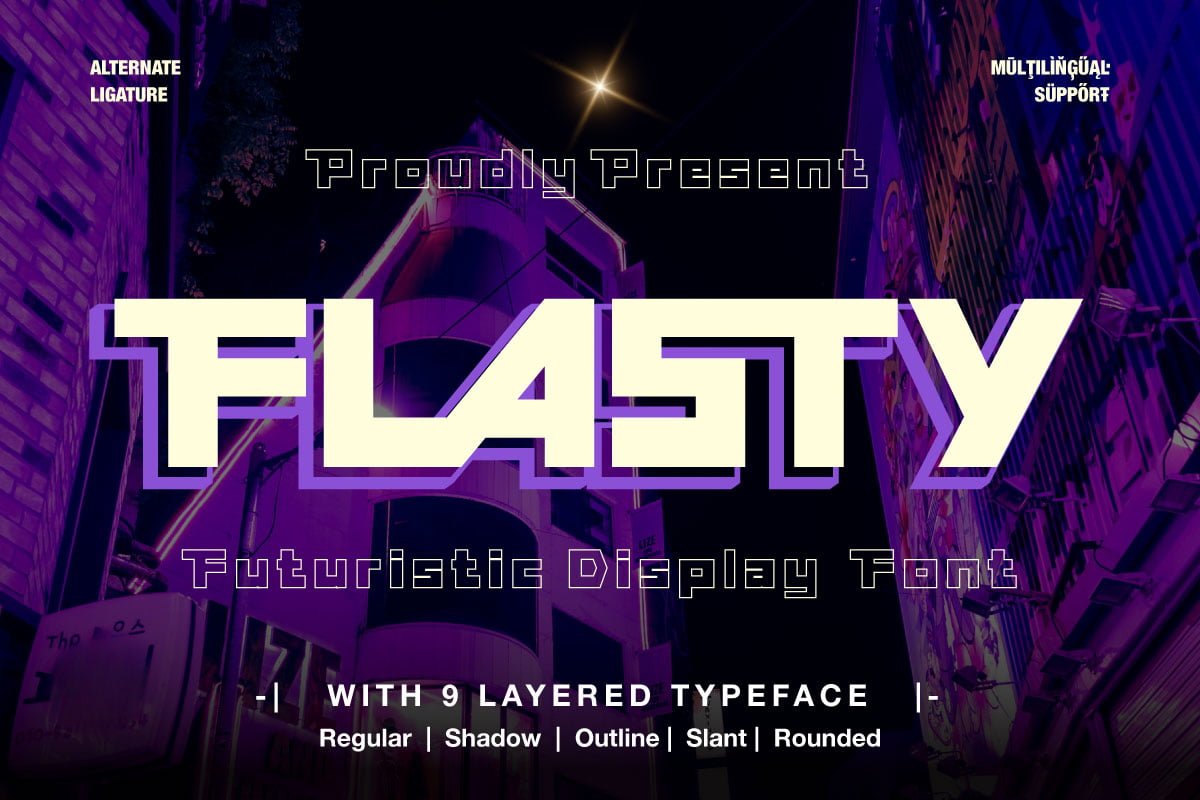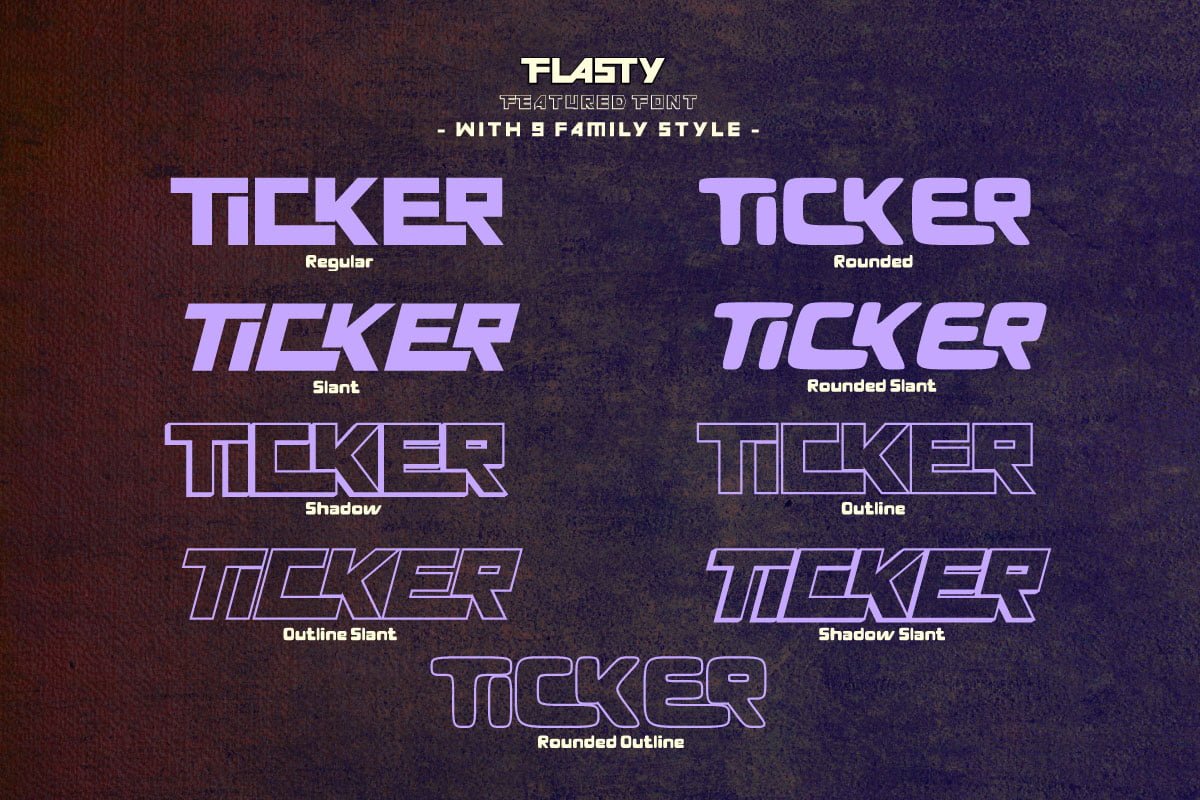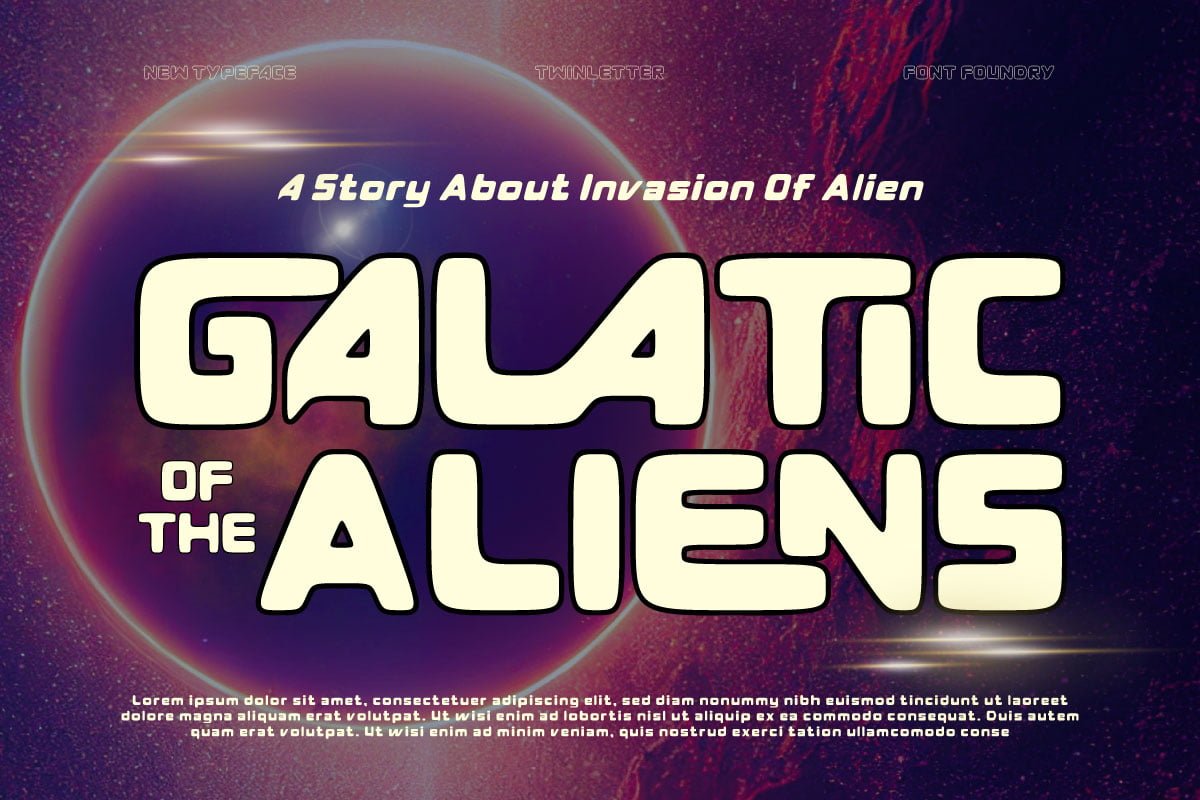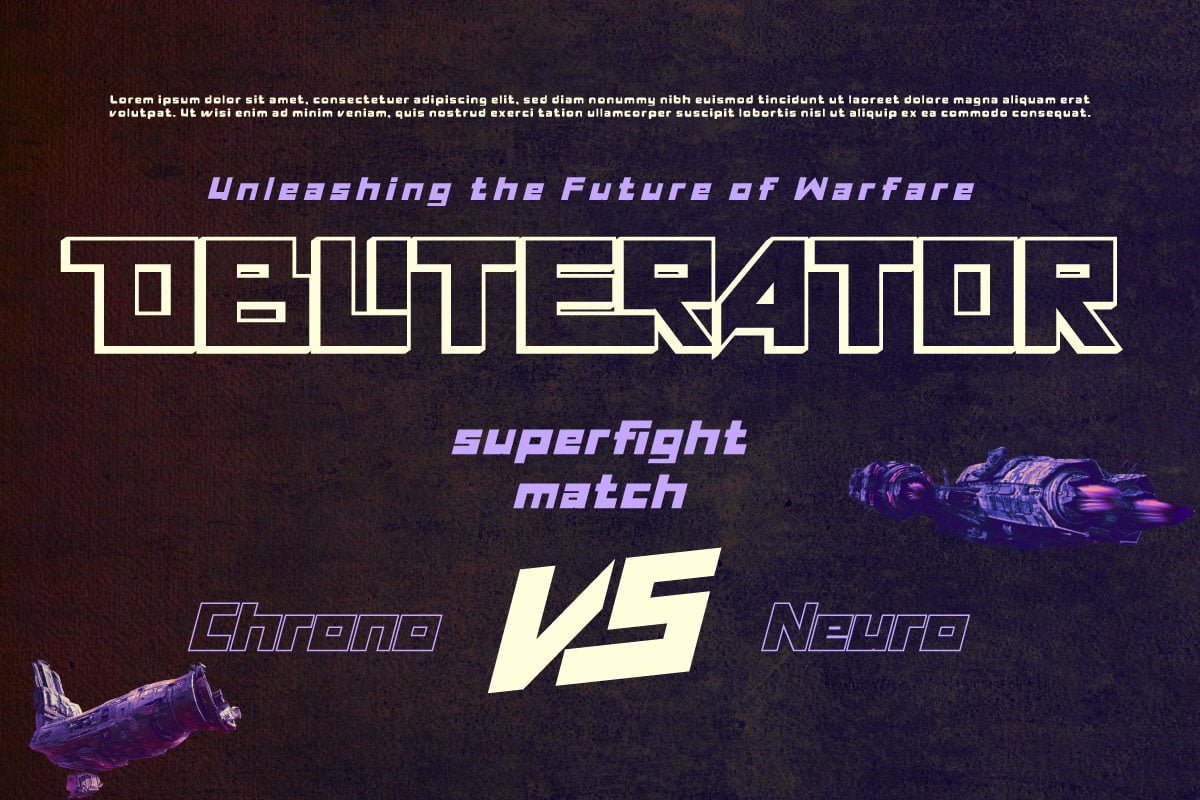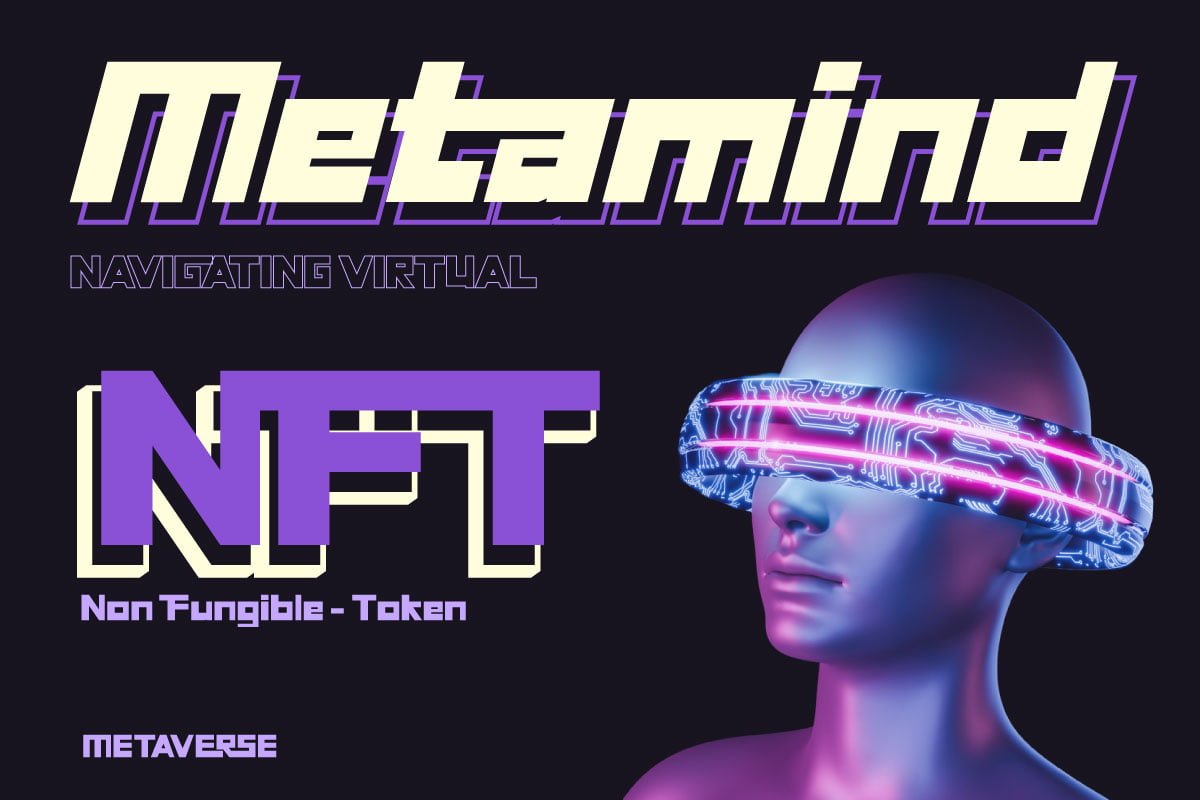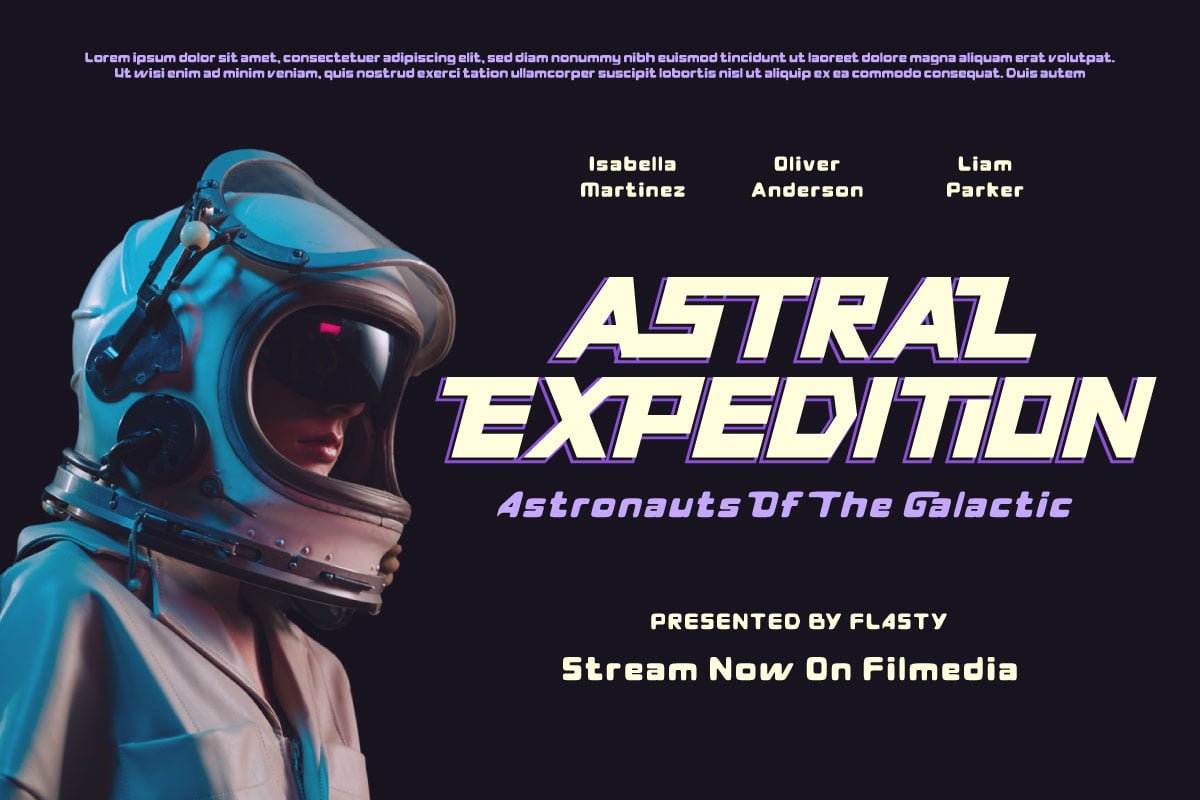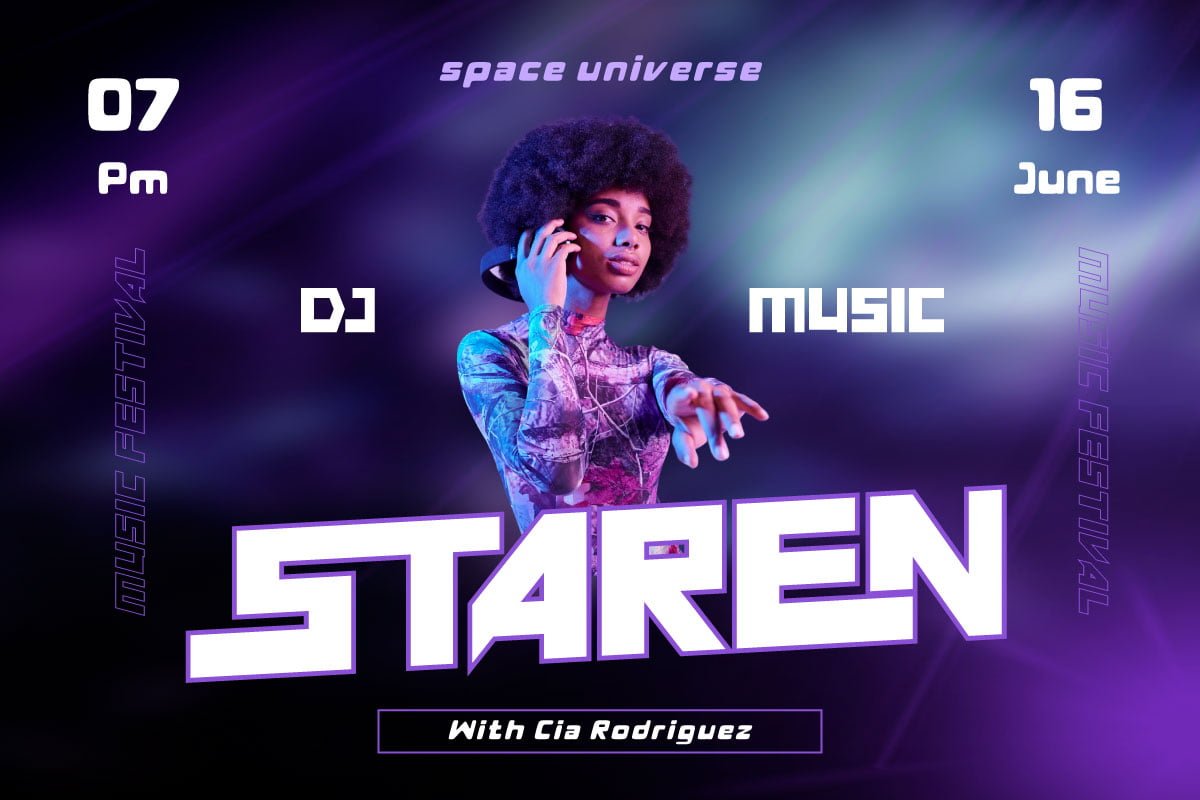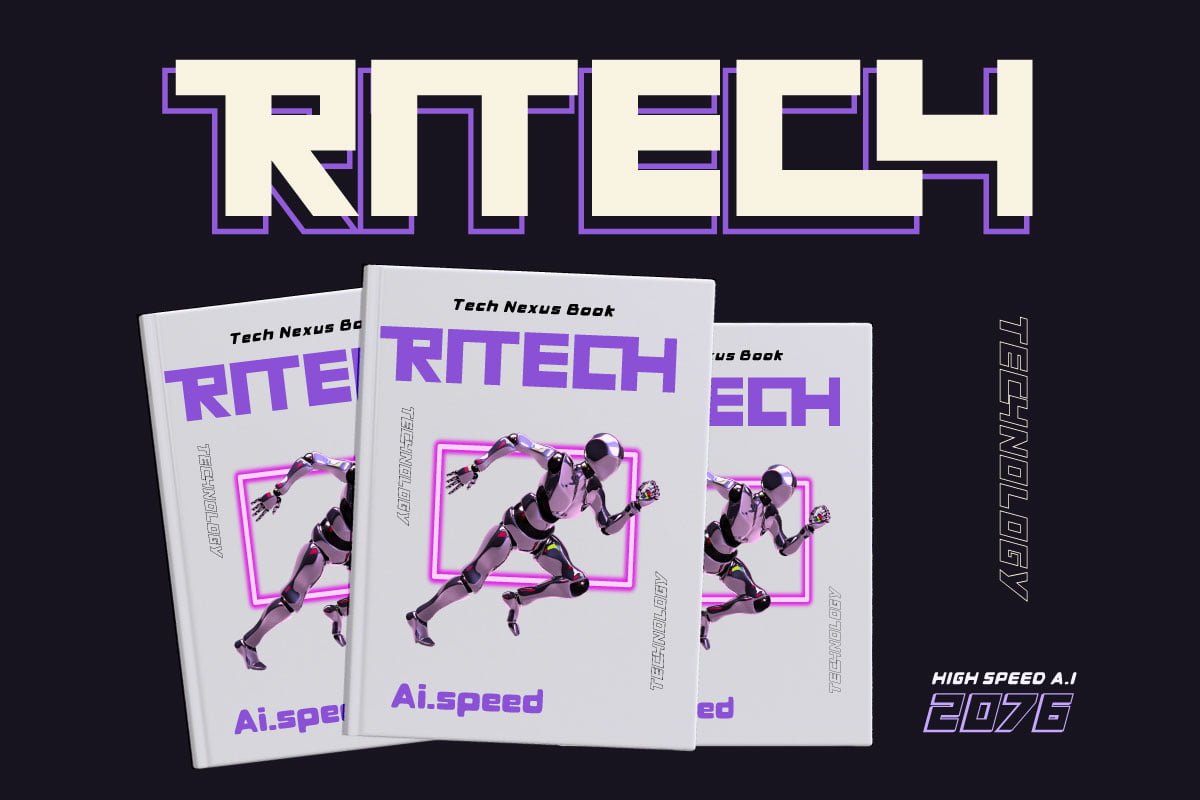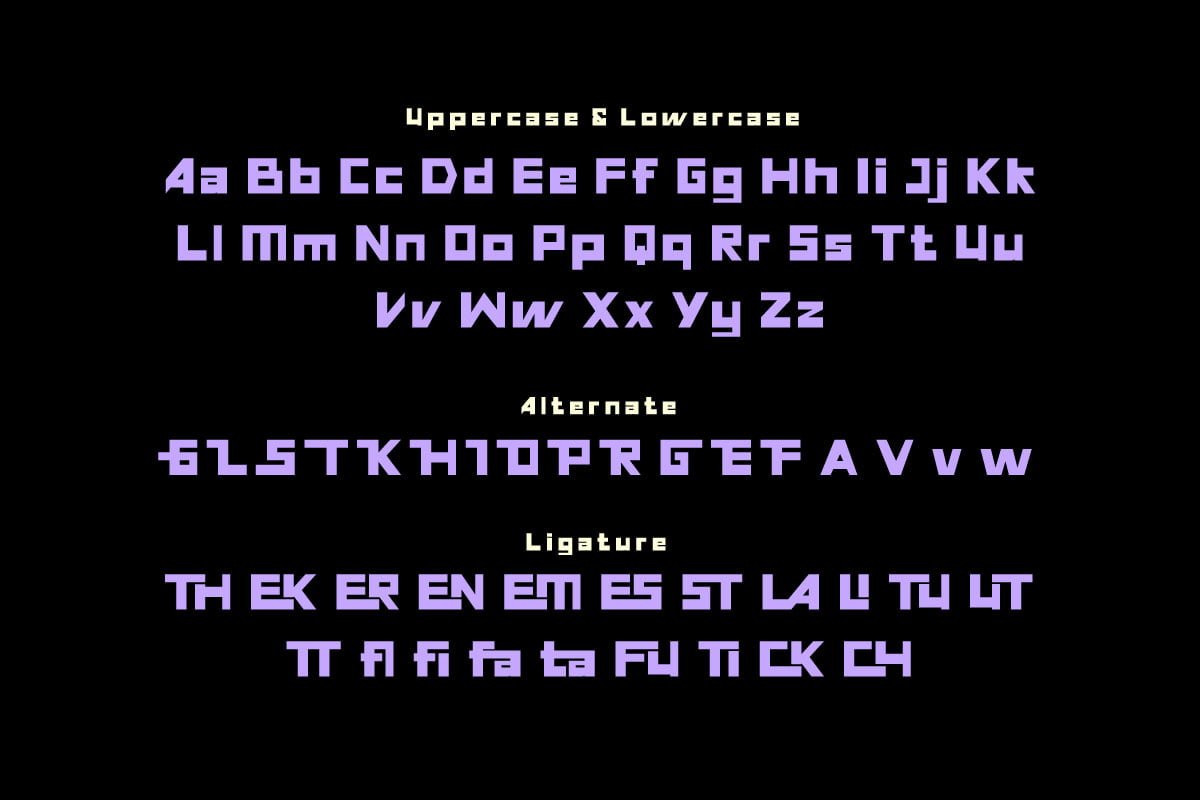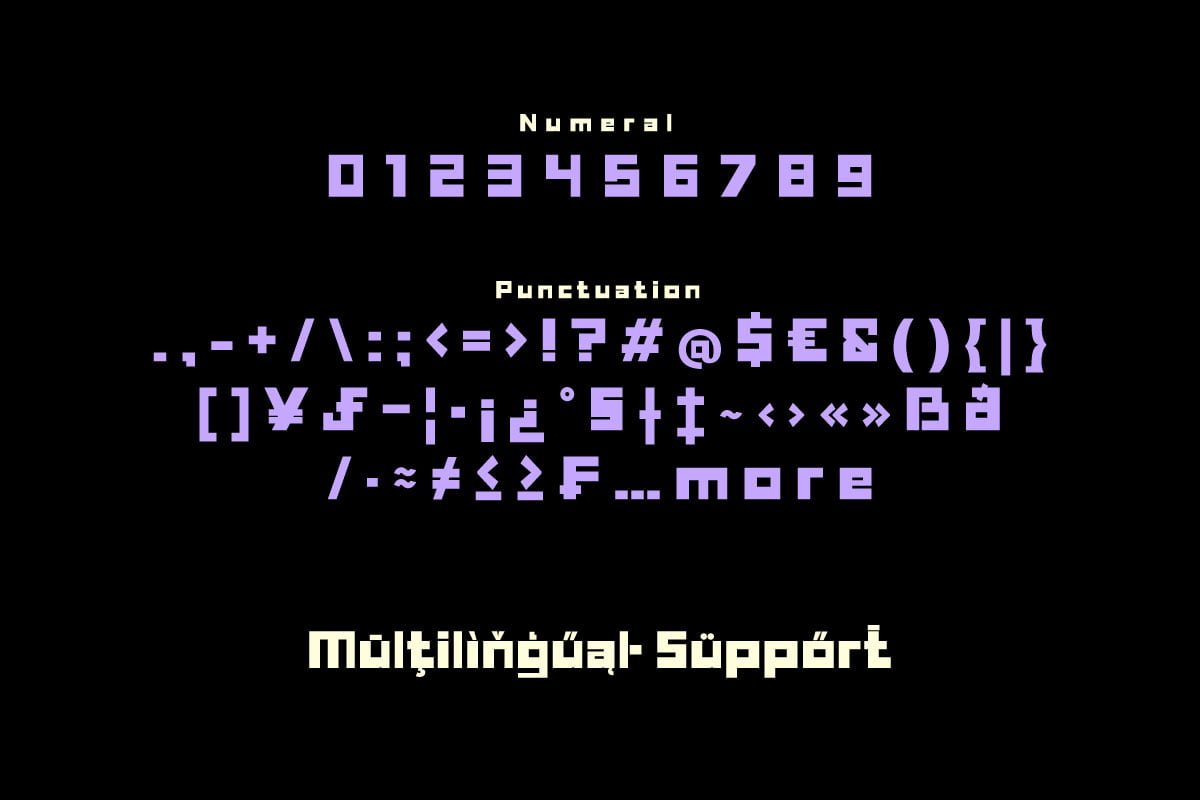
Flasty – Futuristic Font
Flasty is a font that exudes a future aesthetic with an unmatched futuristic touch. As if stepping straight from a holographic screen, Flasty introduces a typography design that revolutionizes the visual display.
With Regular Style, each letter has clarity and sharpness that reflects advanced technology. Like living binary code, each Flasty character implies power and progress.
But the journey into the future doesn’t end here. Flastyexplores new dimensions with Outline Style. Thin lines and geometric precision provide a sense of transparency, creating a stunning illusionary effect.
Flasty goes a step further with each letter seeming to reflect a spectrum of colors, providing a hypnotic and mesmerizing holographic feel.
Flasty is not just a font, but a portal to a new dimension of graphic design. Integrating technology and art, this font shows that the future of typography is just around the corner.